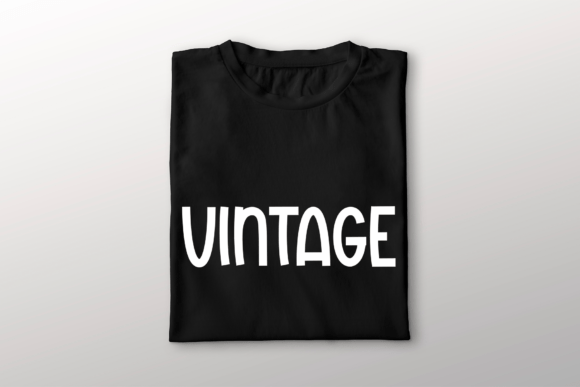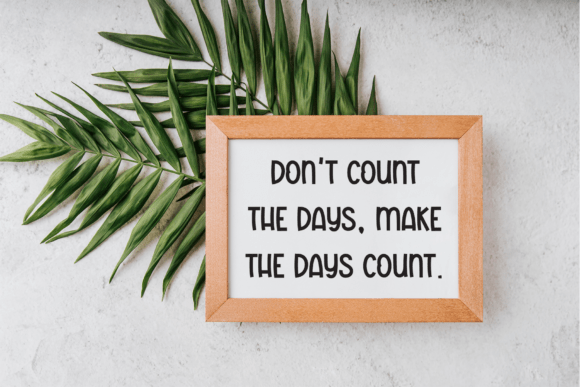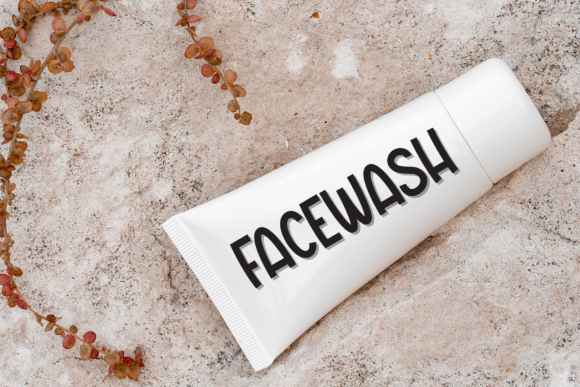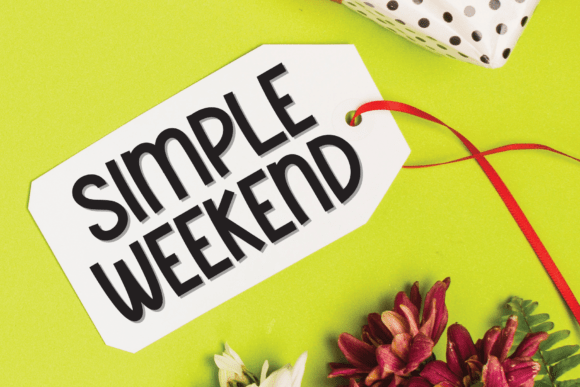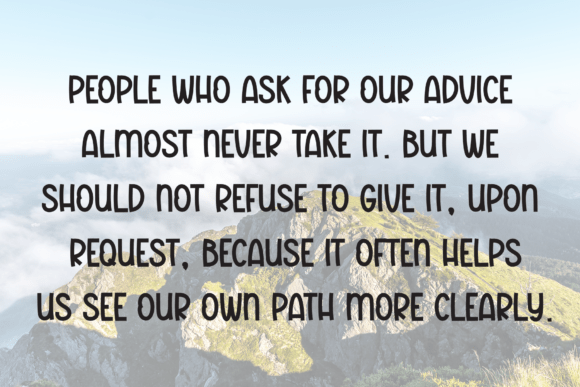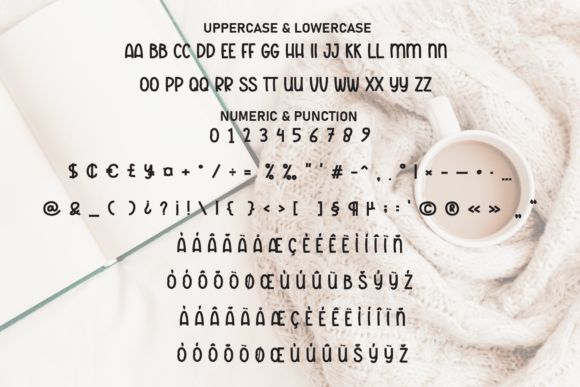
Introducing Blanket Font: The Perfect Blend of Casual and Neat
Are you tired of using fonts that are too formal or too bland? Look no further than Blanket Font, a casual and neat display font designed to bring warmth and clarity to your projects. With its clean structure and approachable style, Blanket Font is perfect for branding, headlines, and everyday designs.
The Characteristics of Blanket Font
Blanket Font boasts a unique combination of characteristics that make it stand out from other fonts. Its clean structure and balanced letterforms offer readability and charm, making every message feel genuine and inviting. The font’s approachable style is perfect for designers and crafters who want to add a personal touch to their projects.
What Makes Blanket Font So Versatile?
Blanket Font’s versatility is one of its greatest strengths. Its casual and neat design makes it suitable for a wide range of projects, from branding and advertising to packaging and signage. Whether you’re creating a logo, a brochure, or a social media post, Blanket Font is the perfect choice.
The Benefits of Using Blanket Font
So, what are the benefits of using Blanket Font? Here are just a few:
- Readability: Blanket Font’s balanced letterforms and clean structure make it easy to read, even at small sizes.
- Charm: The font’s approachable style and casual vibe add a touch of warmth and personality to any project.
- Versatility: Blanket Font is suitable for a wide range of projects, from formal to informal.
- Ease of use: The font is easy to use and pairs well with a variety of other fonts.
Who Can Benefit from Using Blanket Font?
Blanket Font is perfect for designers, crafters, and anyone looking to add a personal touch to their projects. Here are just a few examples of who can benefit from using Blanket Font:
- Graphic designers: Blanket Font is perfect for creating logos, brochures, and other marketing materials.
- Crafters: The font is great for creating handmade cards, gift tags, and other craft projects.
- Small business owners: Blanket Font can be used to create a consistent brand identity across all marketing materials.
How to Use Blanket Font Effectively
Here are a few tips for using Blanket Font effectively:
- Use it as a display font: Blanket Font is perfect for headlines and titles.
- Pair it with other fonts: The font pairs well with a variety of other fonts, including serif and sans-serif fonts.
- Experiment with different sizes: Blanket Font looks great at a variety of sizes, from small to large.
In conclusion, Blanket Font is a versatile and charming font that’s perfect for designers, crafters, and anyone looking to add a personal touch to their projects. With its clean structure, approachable style, and balanced letterforms, Blanket Font is sure to bring warmth and clarity to any project. So why not give it a try and see the difference it can make?